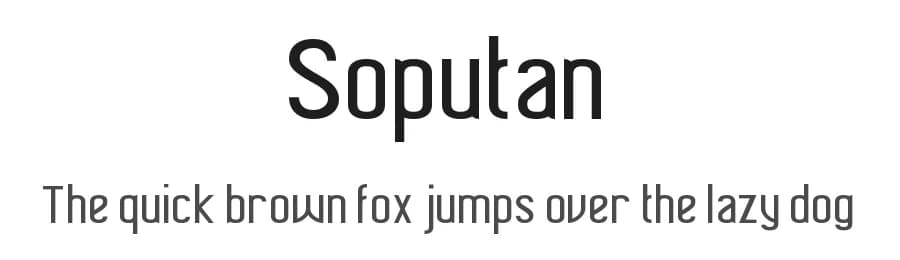
About Soputan Font
Inspired from a volcano located in the province of North Sulawesi - Indonesia, these fonts are made to appreciate the grandeur of that's mountain.
Soputan Font
by Sudar Moko